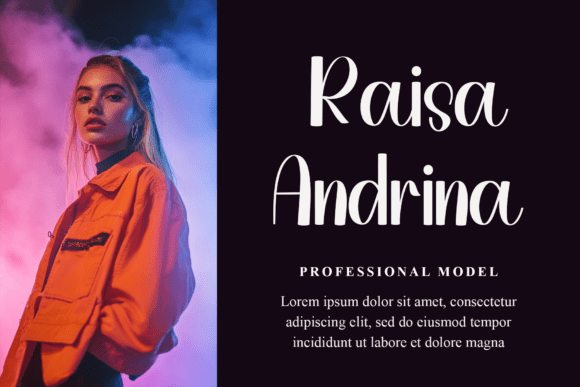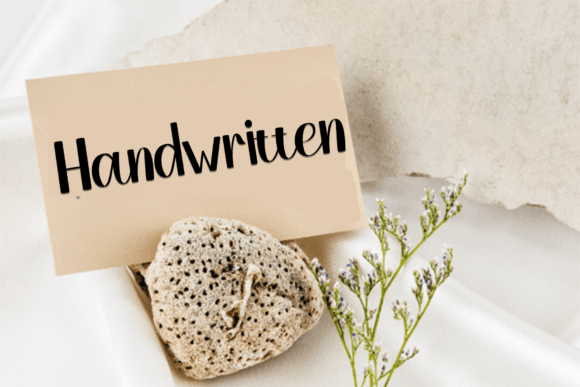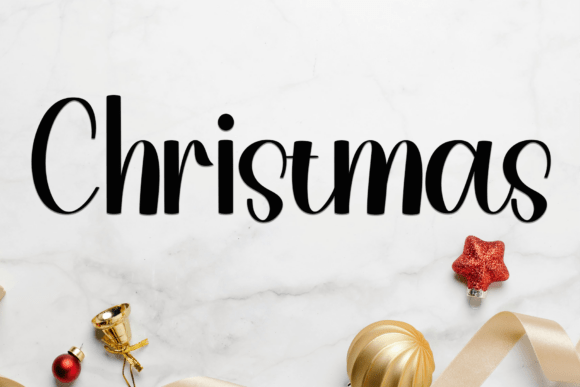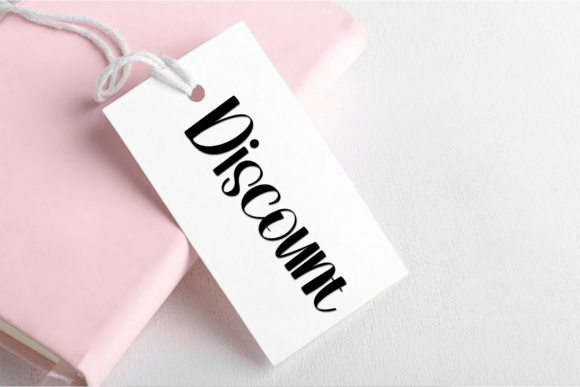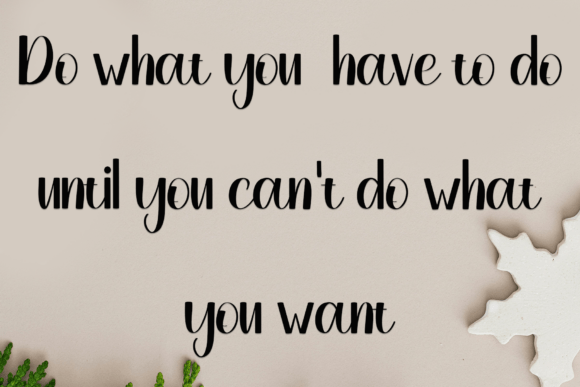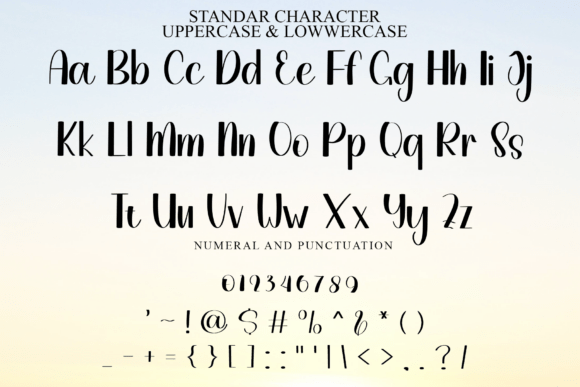
Bring Your Designs to Life with the Perfect Font
You know that feeling when you’re brainstorming a new project, and the perfect font suddenly pops into your head? It’s like the missing puzzle piece that makes everything fall into place. For designers, finding the right font can be the difference between a good design and a great one. That’s where the Designer Creative Font comes in – a casual and creative font that exudes warmth and friendliness.
With its round, playful strokes, this font creates a relaxed and approachable feel, perfect for personal projects, invitations, and social media graphics. The Designer Creative Font‘s charming, hand-drawn aesthetic adds a fun and unique touch to any design, making it a valuable asset for designers who want to stand out from the crowd.
Designer Creative Font Key Features
- Font Family: Designer Creative Font comes in 3 unique font families: Regular, Bold, and Italic, each with 300 glyphs.
- Unique Characteristics: Designer Creative Font features a unique blend of modern and vintage elements, with subtle texture and nuanced letterforms that add depth and character to any design.
- Language Support: Supports over 200 languages, including Latin, Cyrillic, Greek, and many more, making it an excellent choice for global branding and design projects.
Designer Creative Font Review
Overall, I have mixed feelings about the “Designer Creative Font”.
- ✨ Unique style that can add a touch of creativity to any design project
- ✨ High-quality glyphs and character sets, making it suitable for a wide range of applications
- ✨ Excellent legibility, even at small font sizes
- ⚠️ Limited language support, which may be a concern for designers working on multilingual projects
- ⚠️ Some users may find the font’s stylized nature to be too bold or overpowering
- ⚠️ Not ideal for body text, as it can be distracting and difficult to read at larger font sizes
While the “Designer Creative Font” is a solid choice for creative projects, it may not be the best fit for every design scenario. Its unique style and high-quality glyphs make it a great option for titles, headings, and other display text. However, its limitations in language support and legibility at larger font sizes may be a concern for some designers.
Alternatives to Designer Creative Font
Great Vibes is a beautiful, elegant script font perfect for creating a sophisticated and luxurious feel. It’s ideal for use in branding, invitations, and other high-end materials. Compared to Designer Creative Font, Great Vibes has a more refined and polished look, making it suitable for a wider range of applications.
Pacifico is a modern script font with a relaxed and casual vibe. It’s perfect for use in web design, social media, and other digital applications where a friendly and approachable tone is desired. Compared to Designer Creative Font, Pacifico has a more laid-back and informal feel, making it suitable for a younger audience.
Lobster is a fun and playful script font with a vintage feel. It’s ideal for use in creative projects, such as advertising, packaging, and editorial design. Compared to Designer Creative Font, Lobster has a more whimsical and eye-catching look, making it suitable for applications where a bold statement is desired.
Carolyna Pro is a elegant and sophisticated script font with a touch of luxury. It’s perfect for use in high-end branding, advertising, and editorial design. Compared to Designer Creative Font, Carolyna Pro has a more refined and polished look, making it suitable for a wide range of applications where a touch of elegance is desired.